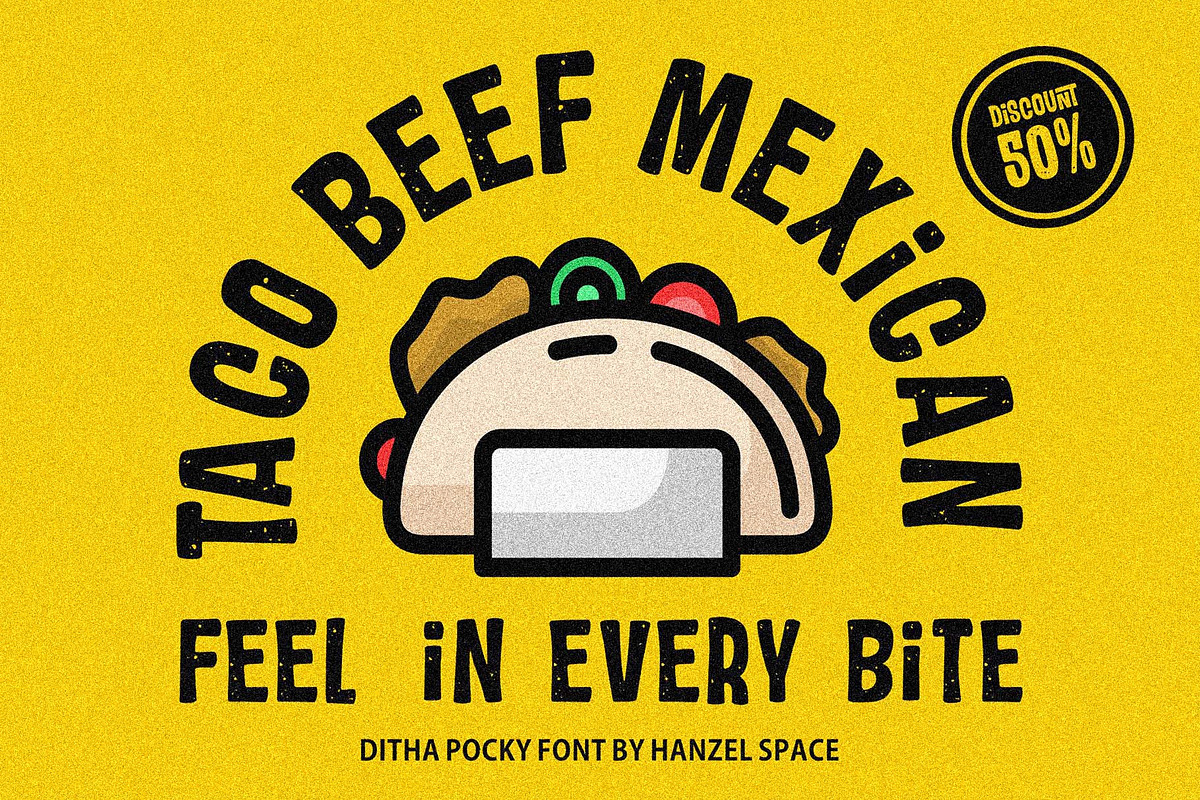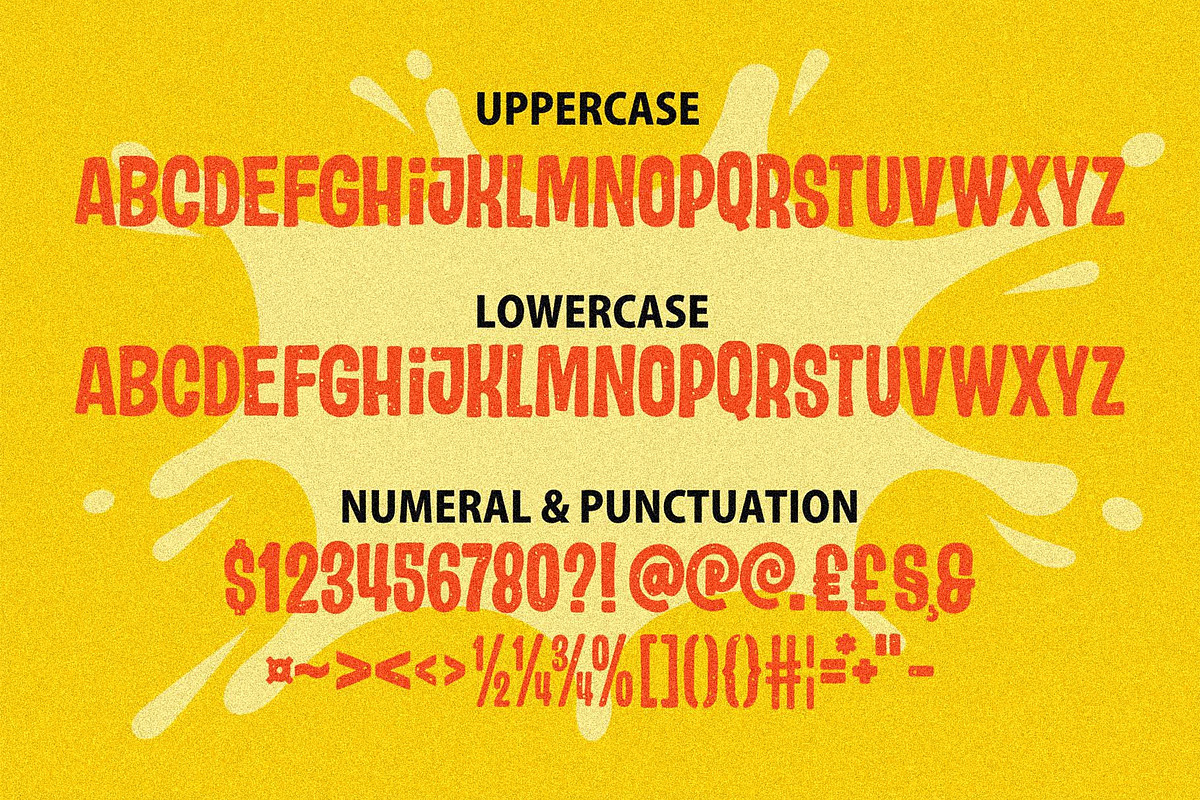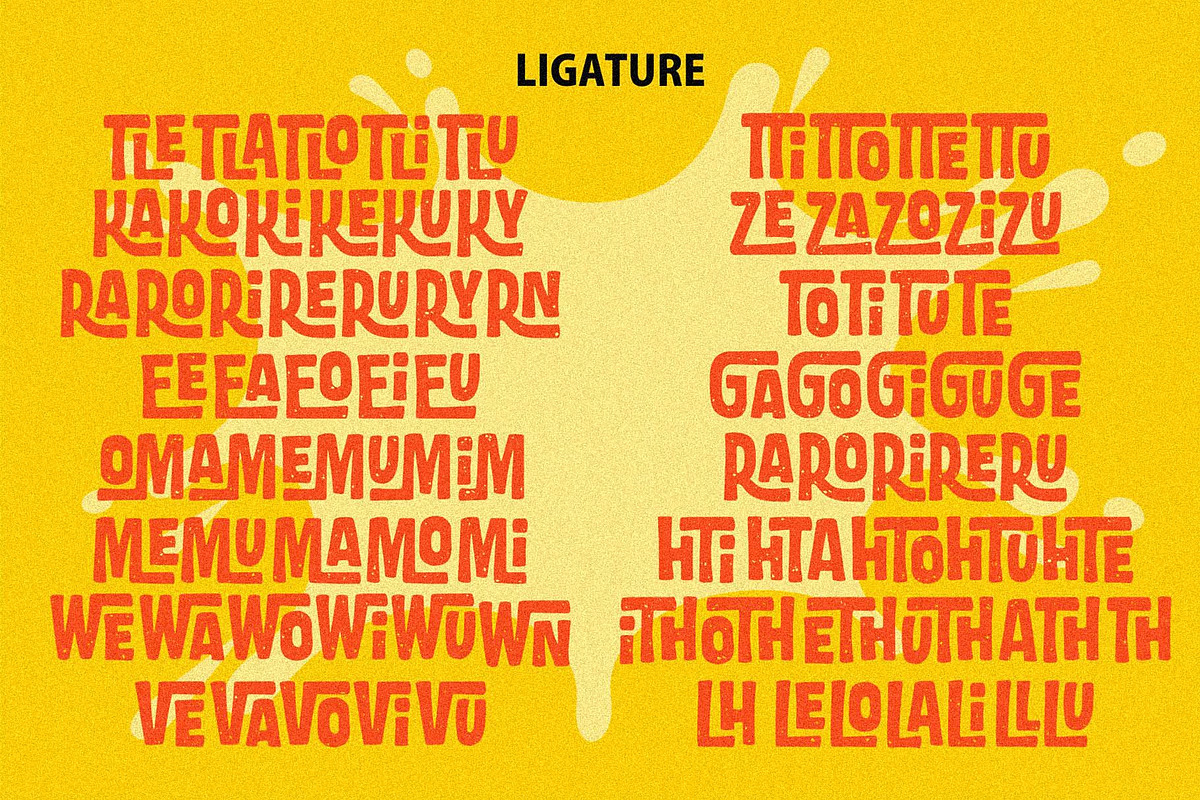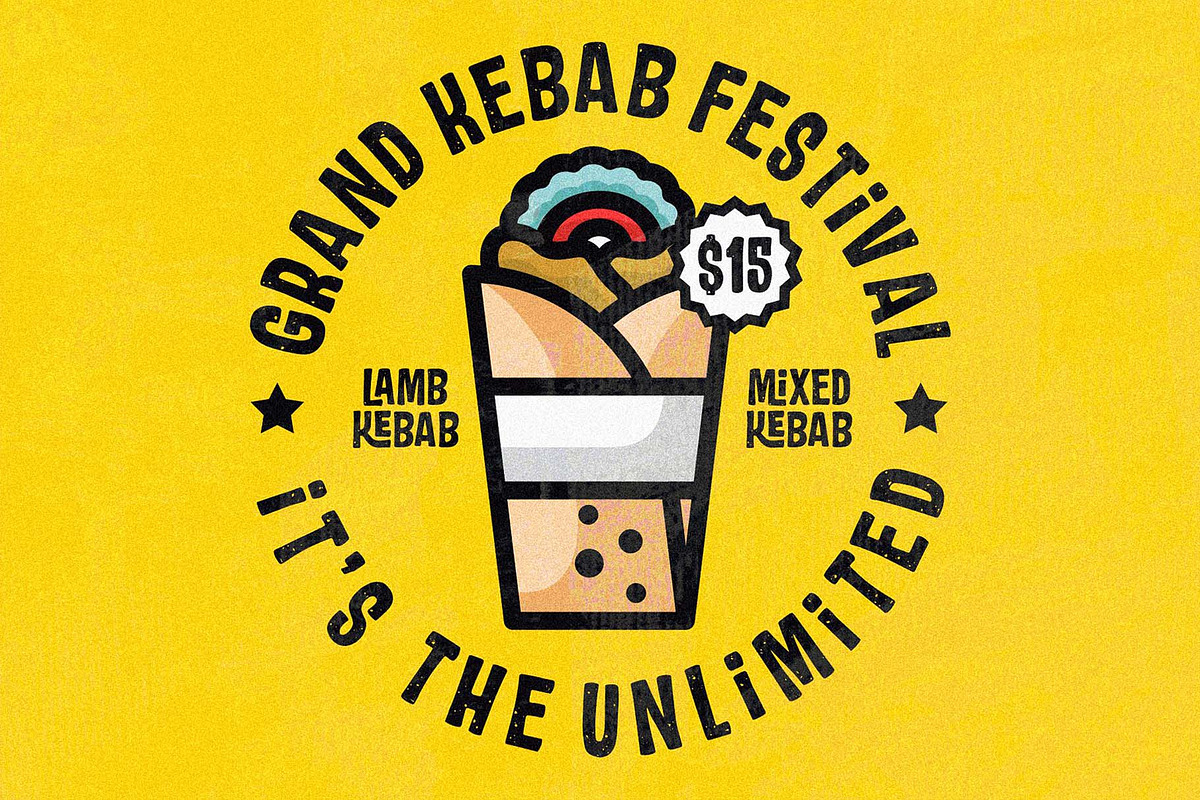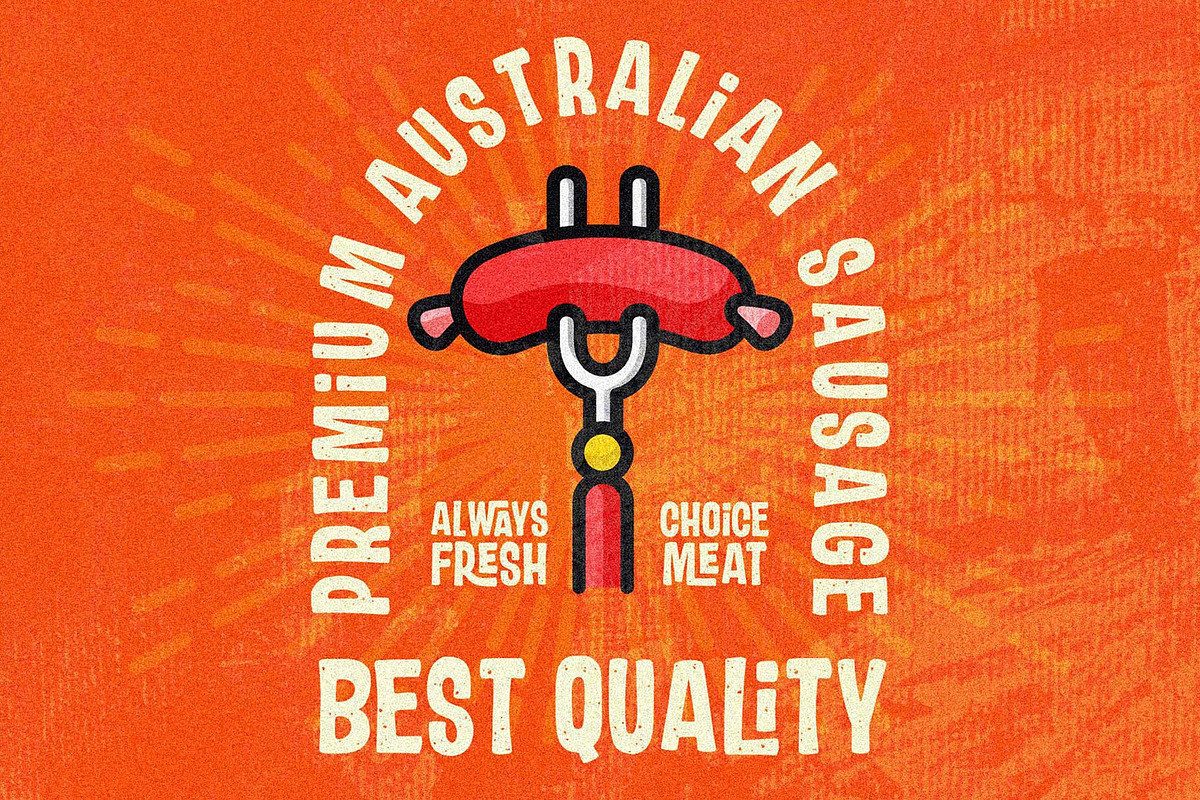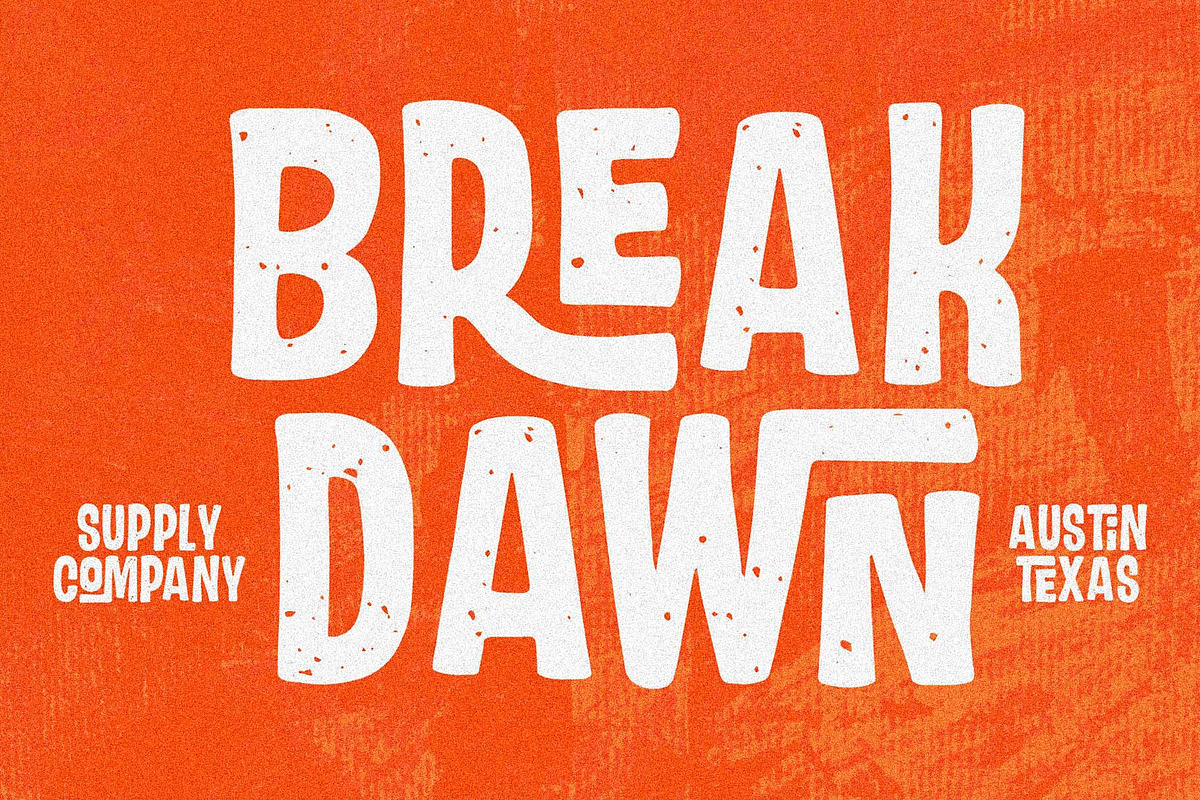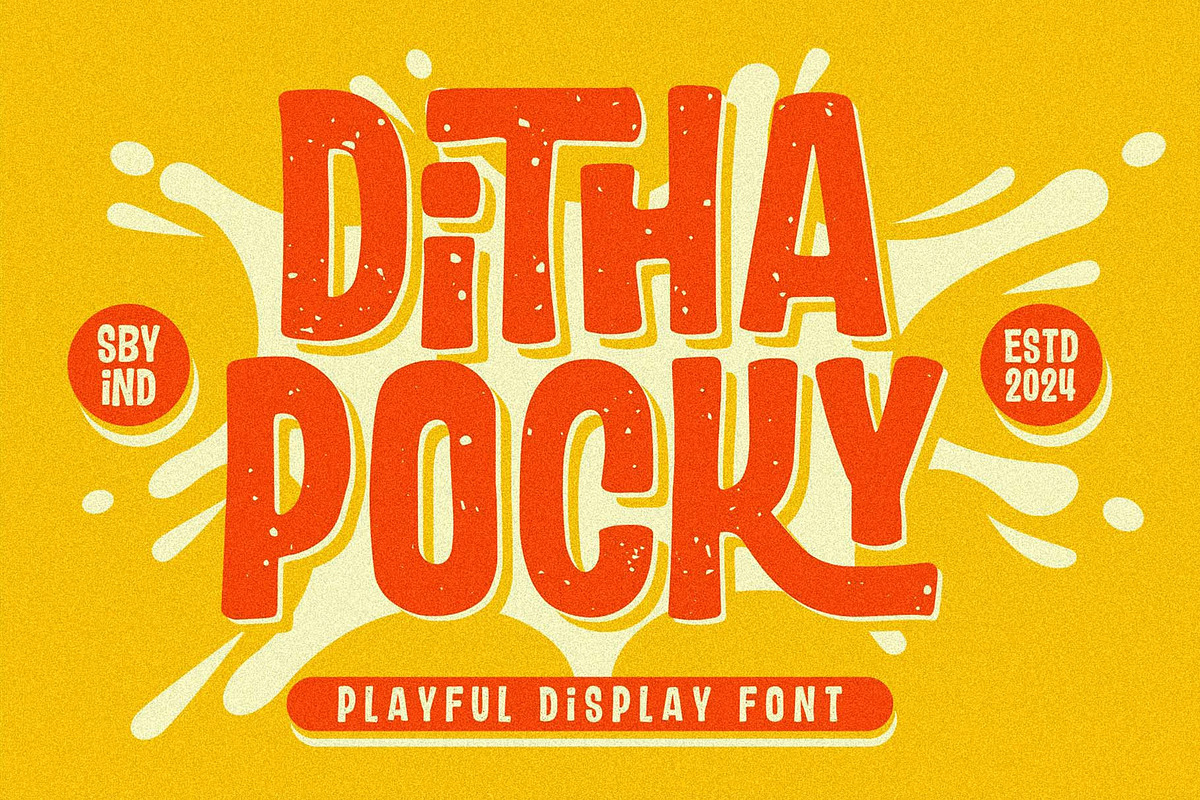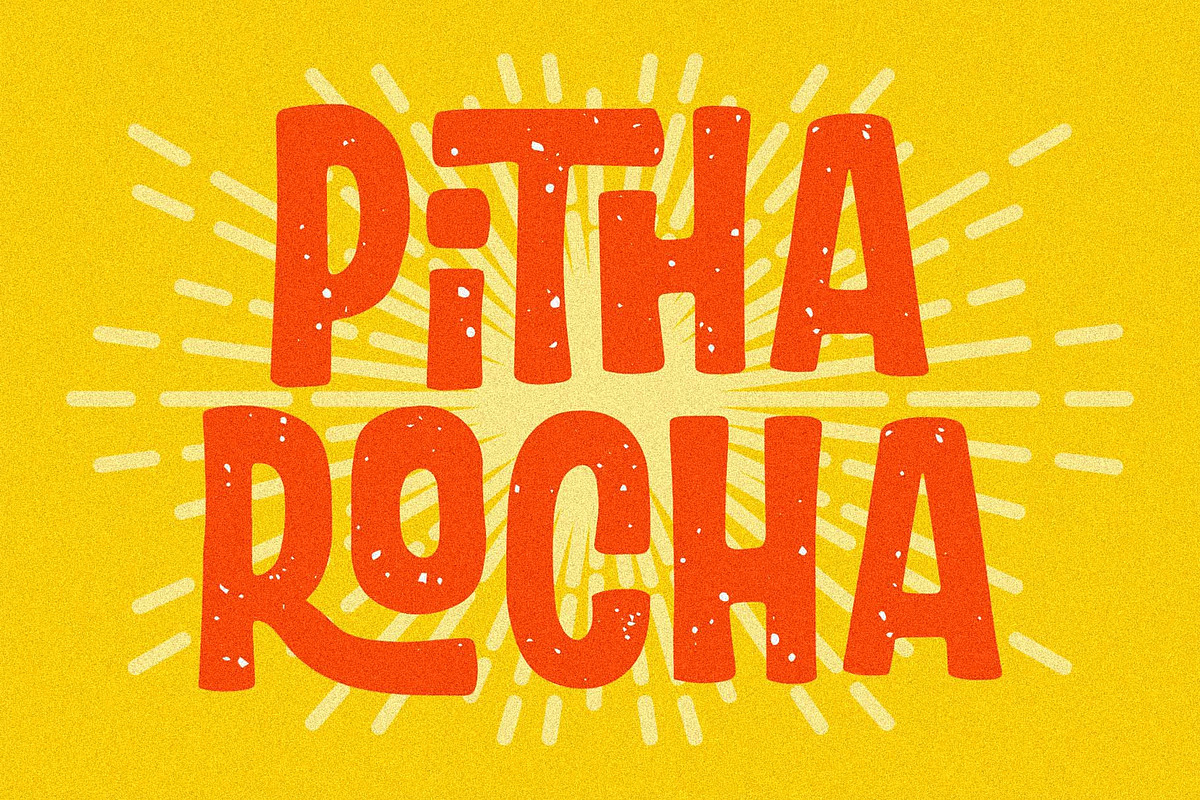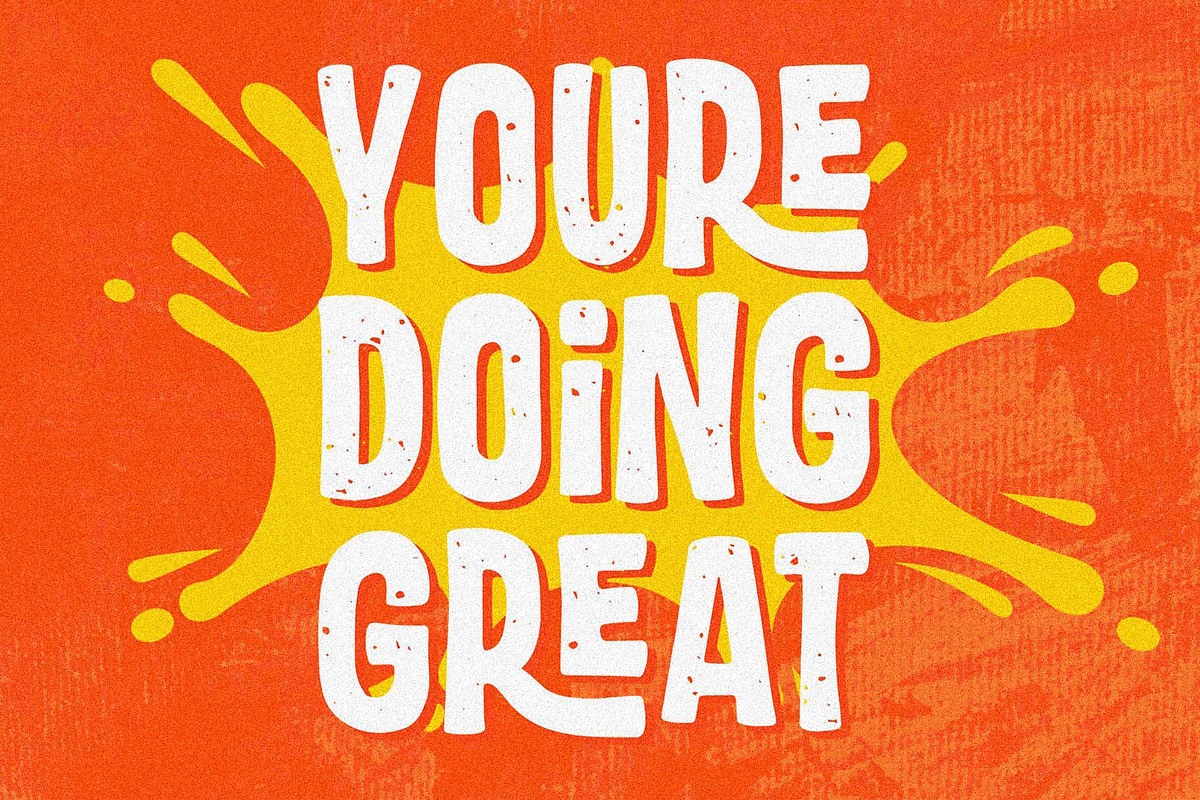
Ditha Pocky - Playful Font
Introducing Ditha Pocky, our new and fun font collection. It combines modern, playful, and formal together. It contains so many alternates and ligatures that you can use it for more fun on your projects.
Ditha Pocky font is ideal for branding projects or packaging that need a quirky and playful feel. Perfect for a wide range of applications, from crafting eye-catching headings and dynamic logotypes to bringing energy to quotes, apparel, invitations, flyers, posters, greeting cards, product packaging, book covers, and printed quotes.
Multilanguage Supports